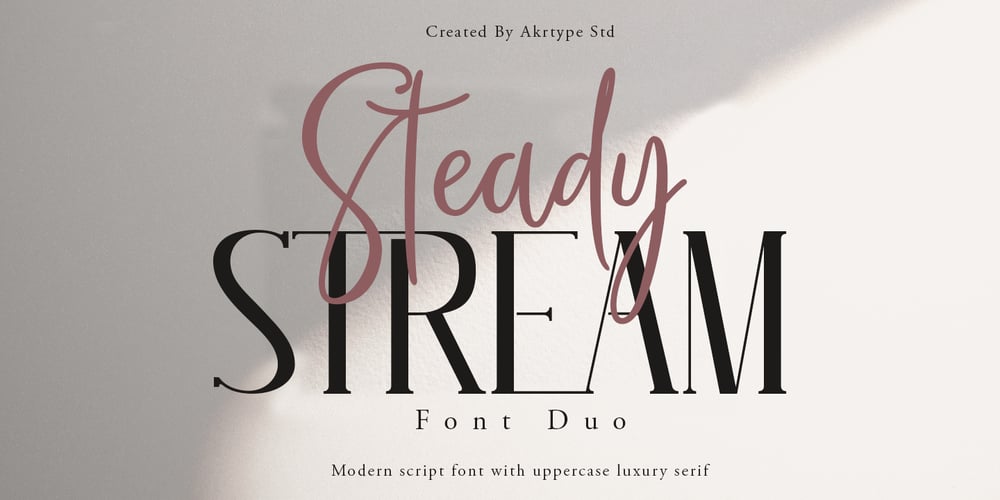
Steady Stream Font Family was designed by Ak Mal and published by Akrtype Studio. Steady Stream contains 2 styles and family package options. Steady Stream is a fresh modern script and a luxury serif uppercase font. This duo consist of a script font that is truly handmade and featuring ligatures, and of a refined uppercase serif font, allowing you to create unique designs that suit your needs. This font duo is perfect for branding and logo designs, magazine and editorial designs, cards and stationery, and more!The script includes multilingual support.Happy designing.